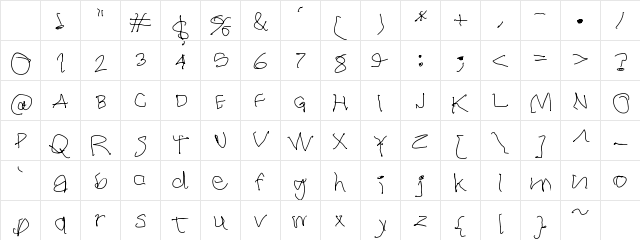
The Writer is a composed and adaptable typeface that performs quietly and consistently across a wide range of design contexts.
Pro Tip: Use The Writer in both headline and body roles to test its range before committing to a single application.